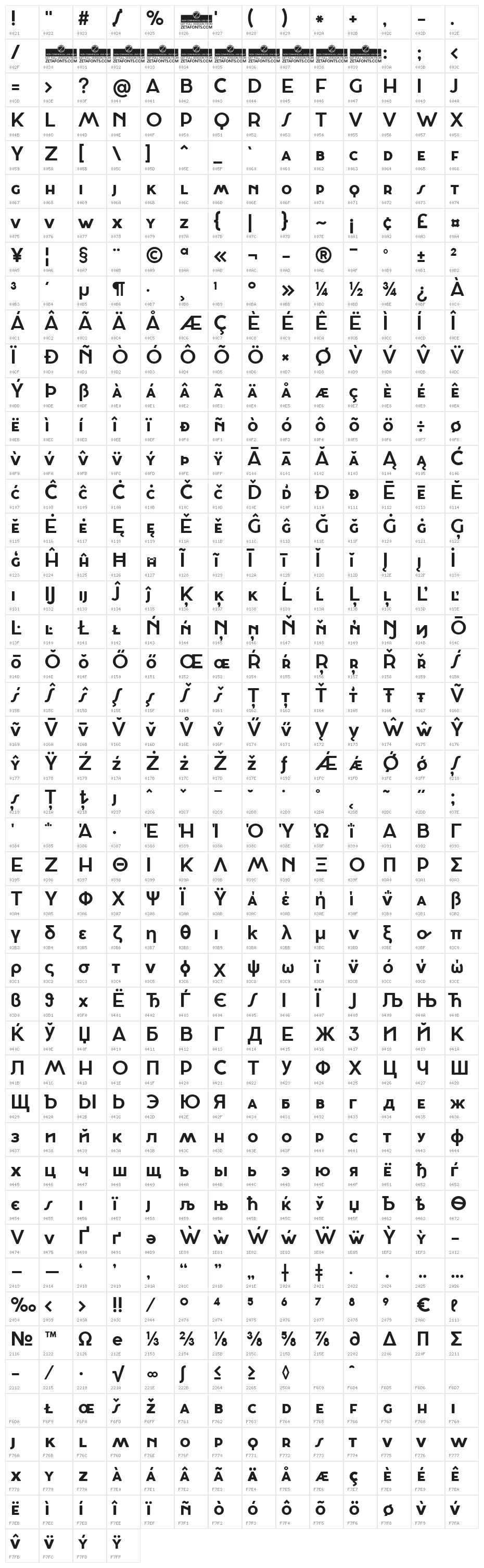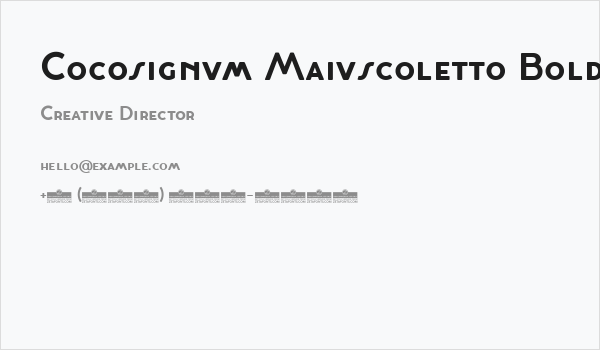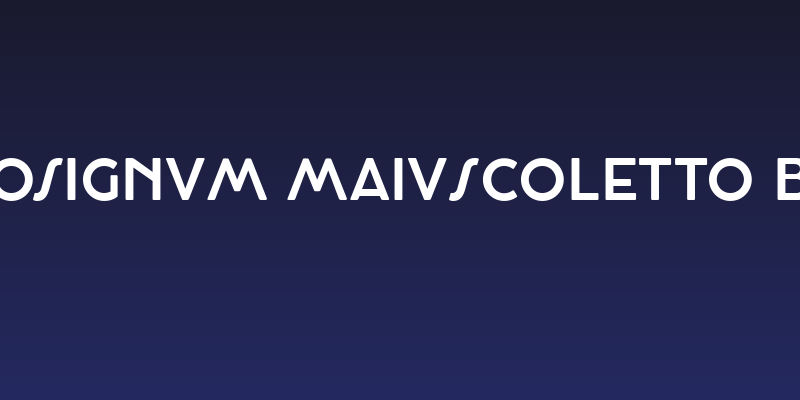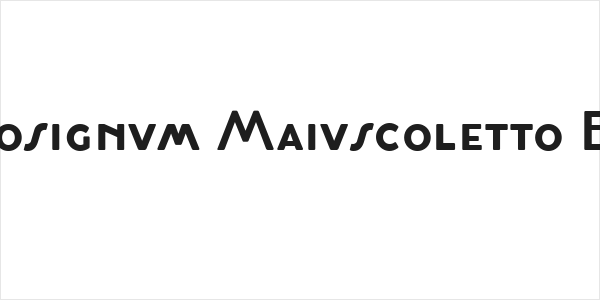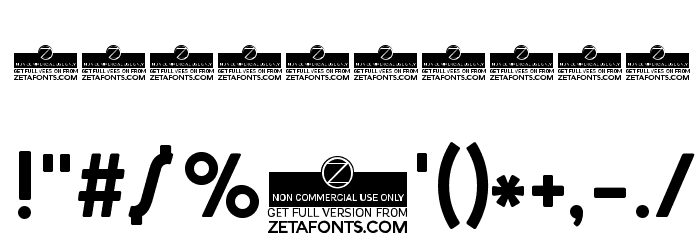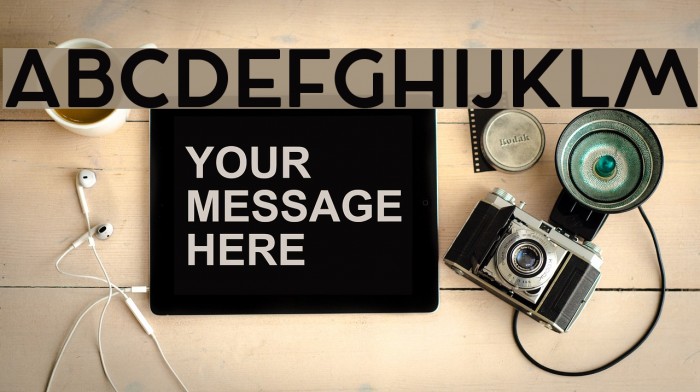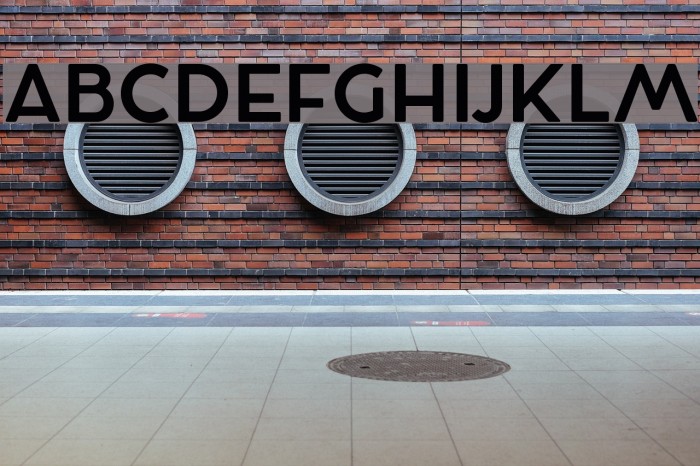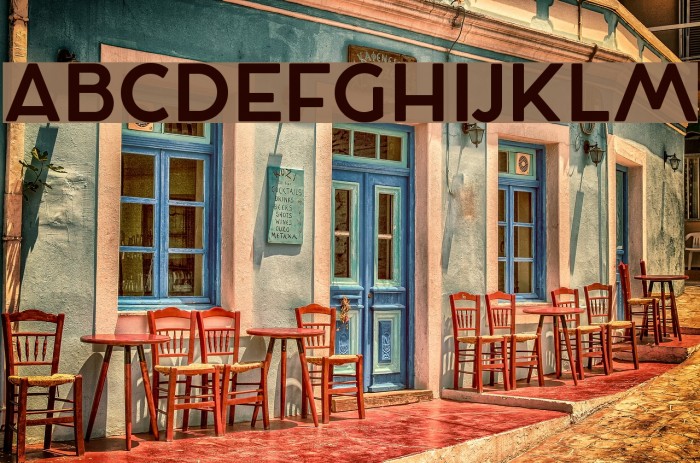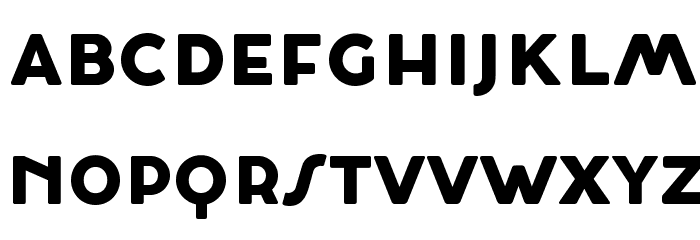
Cocosignum Maiuscoletto Bold Font
Cocosignum Maiuscoletto Bold Description
This font features a bold and geometric style with clean, sharp lines and a modern aesthetic. The uppercase letters are uniform in height, with distinctive angular cuts and a consistent stroke weight that gives it a strong presence. The lowercase letters maintain the same boldness, with some unique character shapes that add a touch of individuality. The numerals are clear and easy to read, matching the overall boldness of the alphabet. Special characters are well-integrated, maintaining the geometric style. This font is ideal for making a statement with its bold and confident design.
| Proposed Projects | Ideal for branding, headlines, posters, and modern design projects. |